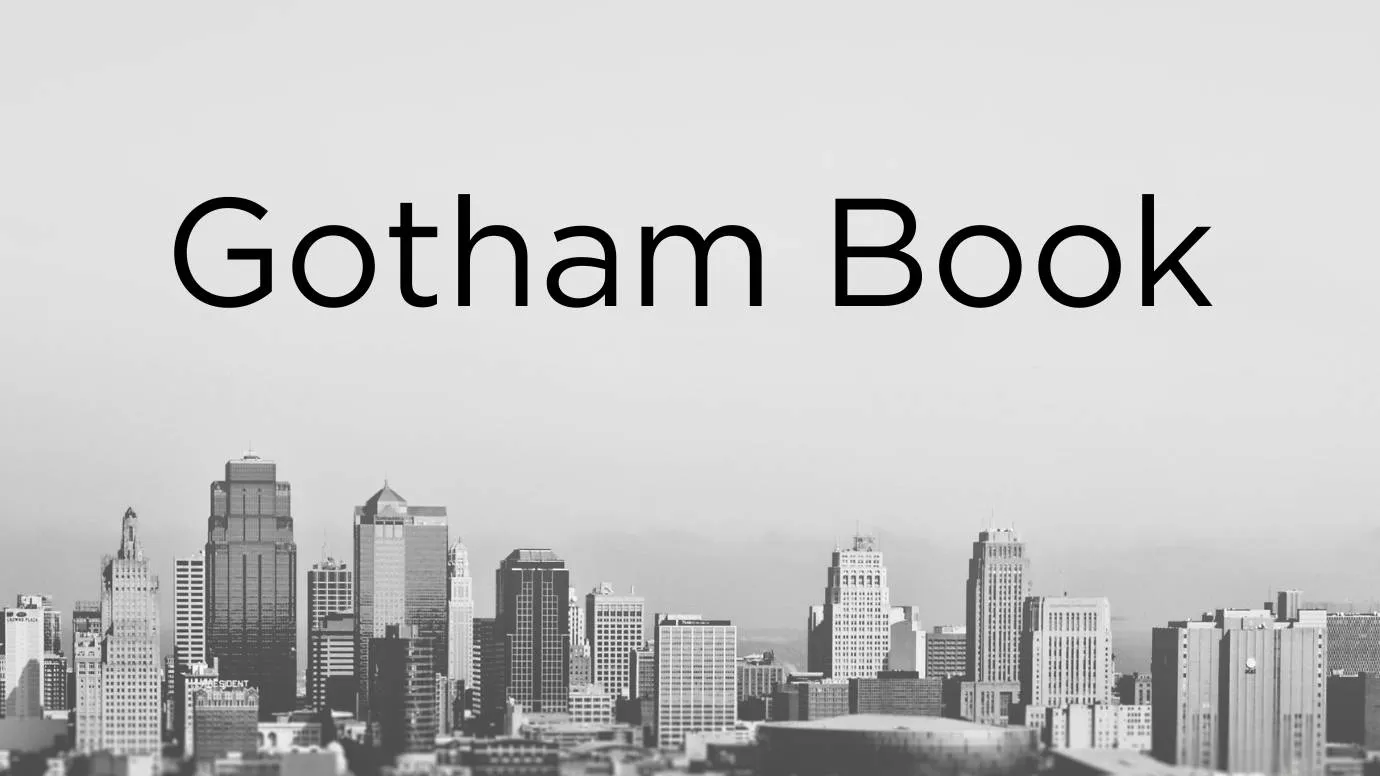
Gotham Book was designed by Tobias Frere-Jones, which he created in 2000. This font is suitable for use in applications, branding, and designing logos.
This font his family of gotham font and comes with an extraordinarily minimalistic, elegant tone with crisp and clear lines. The pop of color adds to the enjoyable and lets the font take the center stage of any design.
TypeSans Serif
DesignerHoefler & Frere-Jones